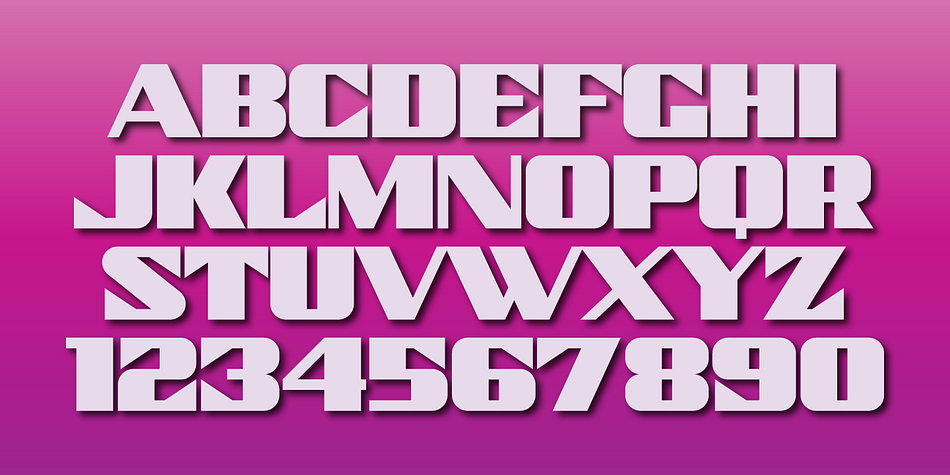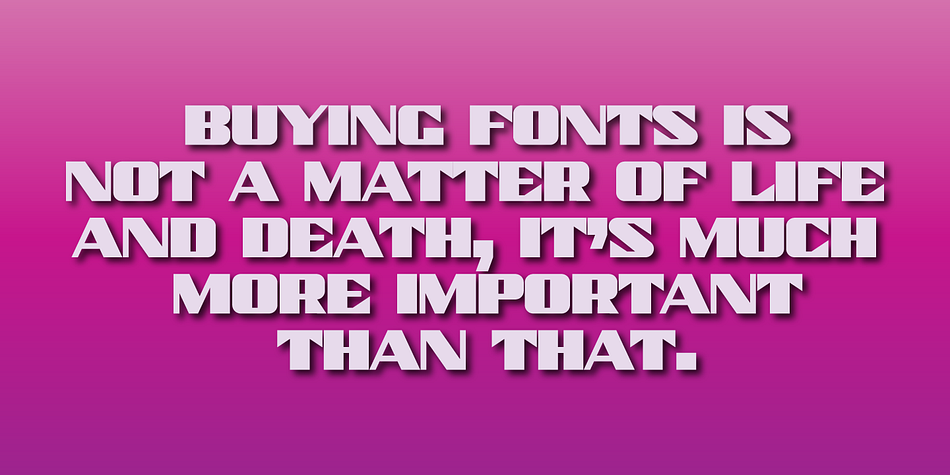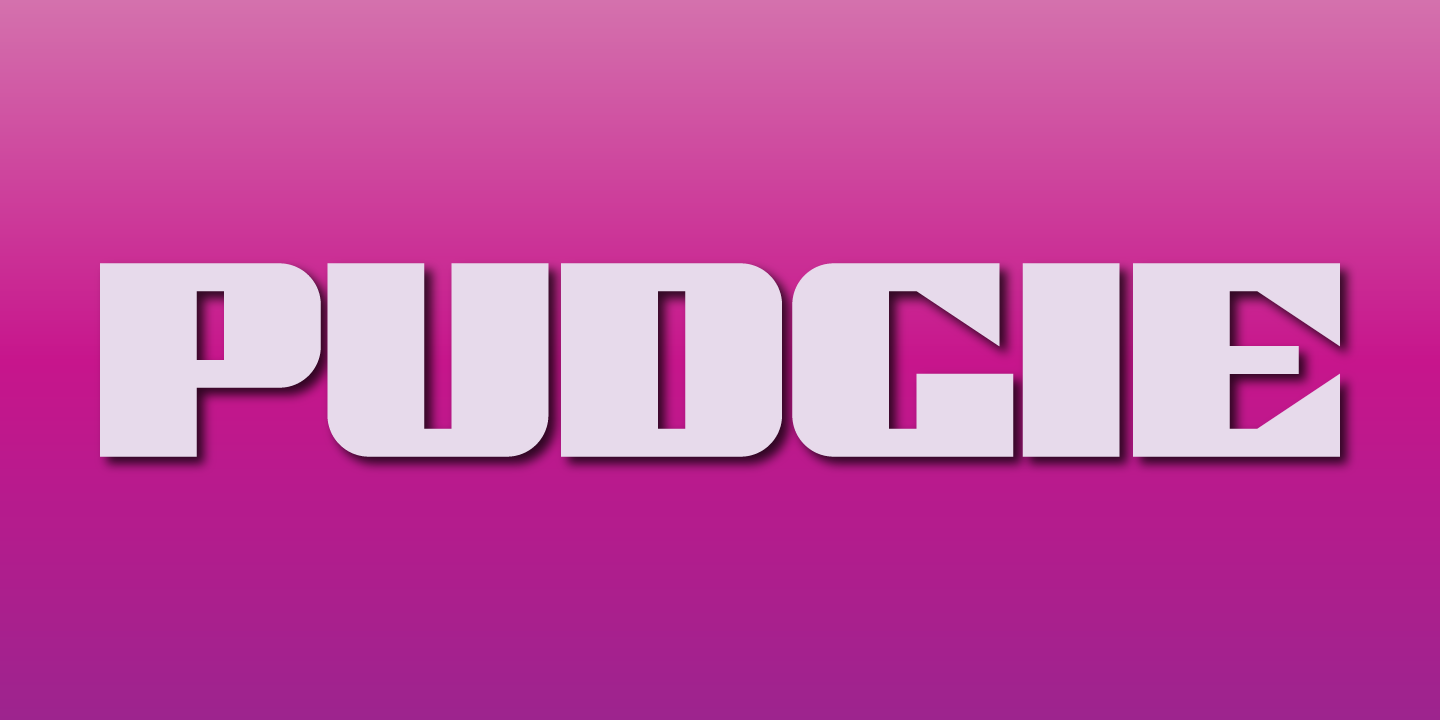
Designed by Gerald Gallo, Pudgie is an art deco and display sans font family published by Gerald Gallo Fonts.
Pudgie is an all caps, bold, sans serif font. It is ideal for headlines, titles, branding, and small blocks of text.